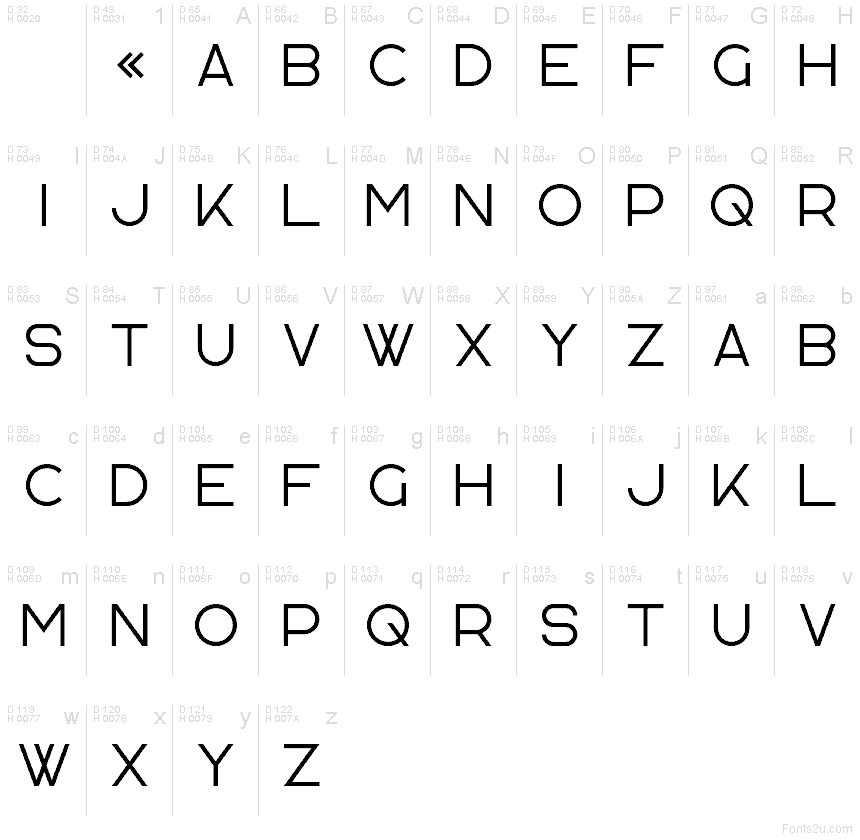
Kavo
Kavo font by VPcreativeshop is a modern display font with a unique touch, innovative design, and minimal aesthetic. Letters are minimalistic with mostly equal line thickness, which results in the clean professional look of this typeface. This geometric condensed free sans serif font was designed in four different weights which expand its use case possibilities even further.
Suitable for minimalist typing reading as well as short headings and titles this gorgeous typeface can be used in branding designs, logos, social media content creation, posters, magazines, typography designs, labels and packaging projects for cosmetics or food items. All digital platforms benefit from using Kavo - websites development, mobile applications UI/UX design or infographics design.